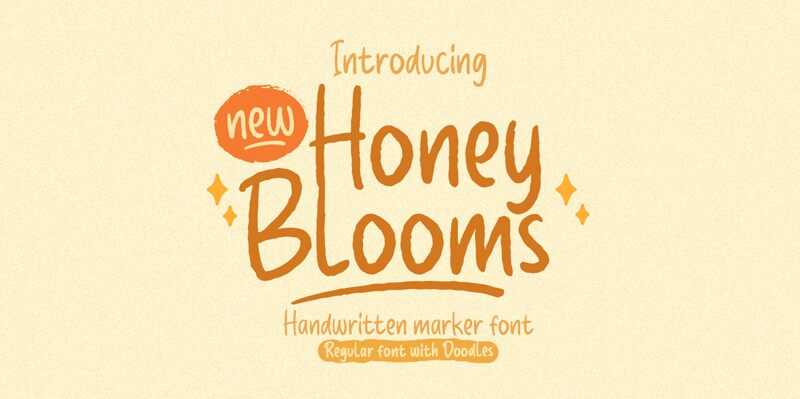
Honey Blooms font by Letterhend Studio is a handwritten script font that embodies casual elegance, an organic feel, and contemporary flair. With its approachable style, it mimics natural handwriting with fluid letters and rough edges for an authentic composition. The genuine look produced with this typeface adds personal touches to projects where it is used.
Use Honey Blooms font in logo designs, printed packaging (chocolate boxes, tea bags), wedding invitation cards, magazine cover designs artwork prints, in-shop labels/signs, rap album covers design clothing labels/tags; branding identity visualizations social media posts fashion/beauty website headlines luxury restaurant menu designs!